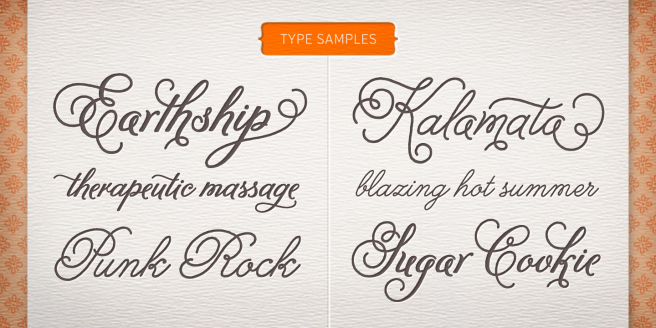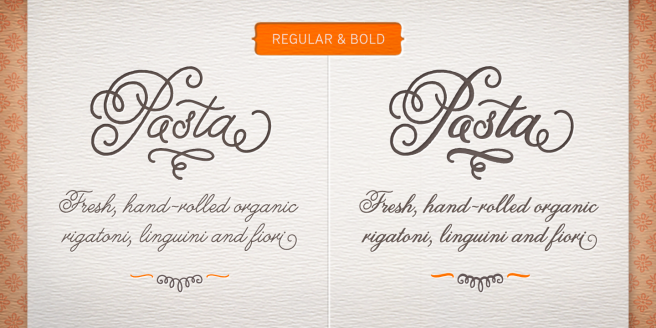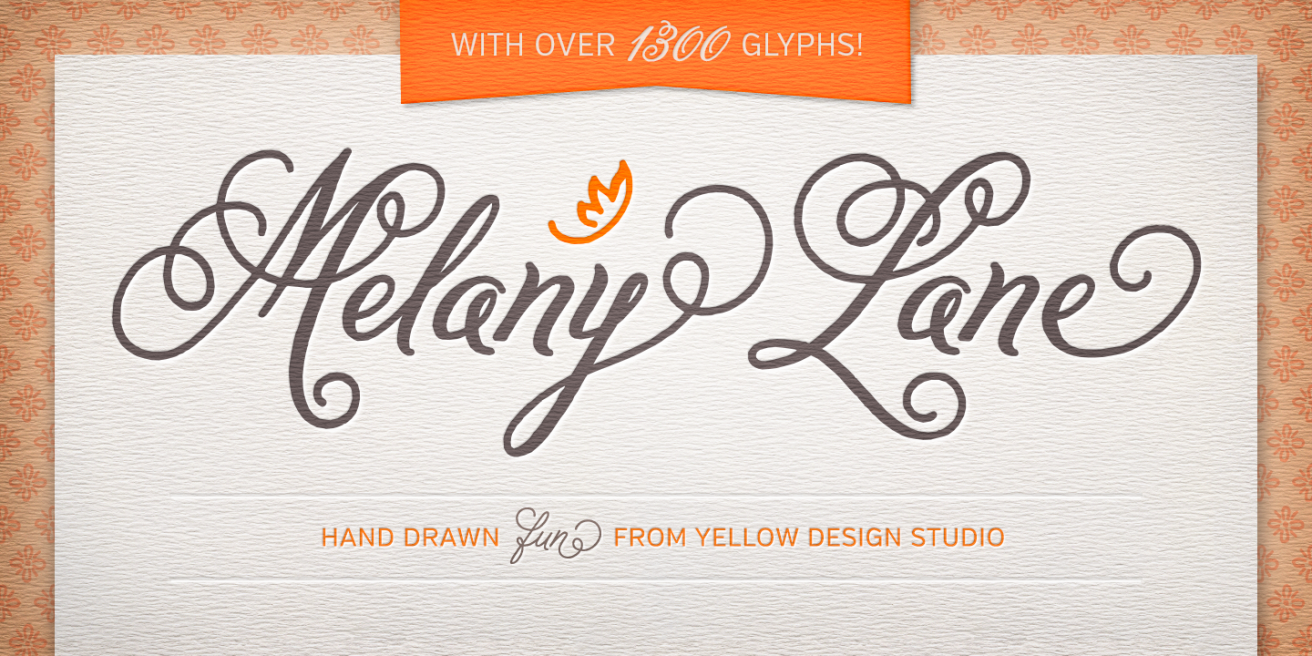
Our January 29, 2016 issue of Font Faves features Yorkten from insigne Design, Cyntho Slab Pro from Mint Type, and Melany Lane from Yellow Design Studio.
Yorkten by Insigne Design is a fashionable, geometric sans with a grand total of 54 weights. If you need a flexible family that can be used in varying widths across an entire company’s documents, websites and apps, this is a fantastic choice.
Yorkten
Insigne Design
Speaking of geometric fonts, how about a geometric slab? A favorite of ours still for titling, Cyntho Slab Pro has enough charm at thin weights that you don’t need to stick with the big thick chunky weights to get anything done. Another winner by Mint Type.
Cyntho Slab Pro
Mint Type
Ryan Martinson of Yellow Design Studio gets a lot of recognition for his popular fonts like Veneer, Thirsty Script or Sant’Elia, but Melany Lane deserves just as much attention. A very clean and well proportioned script in an age of messy scripts, don’t discount its ability to bring a design to life.
Melany Lane
Yellow Design Studio